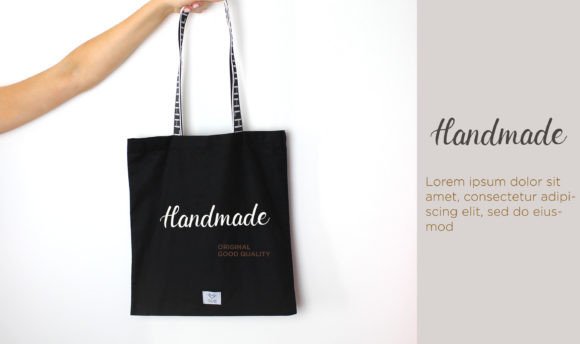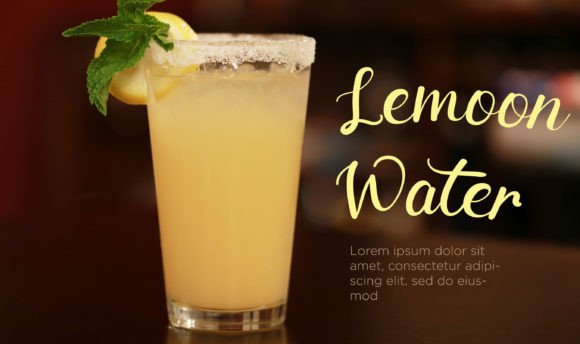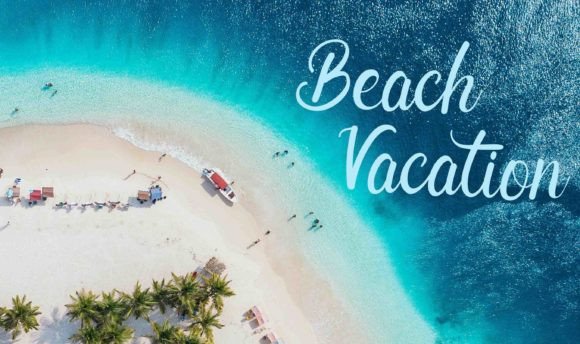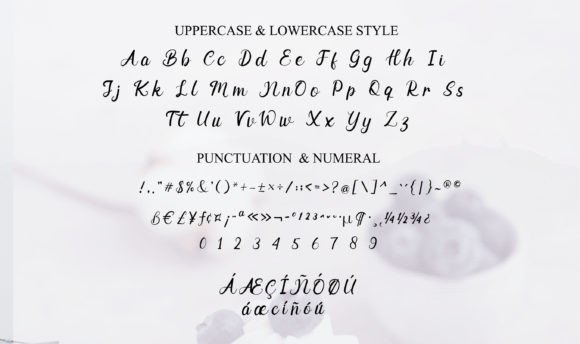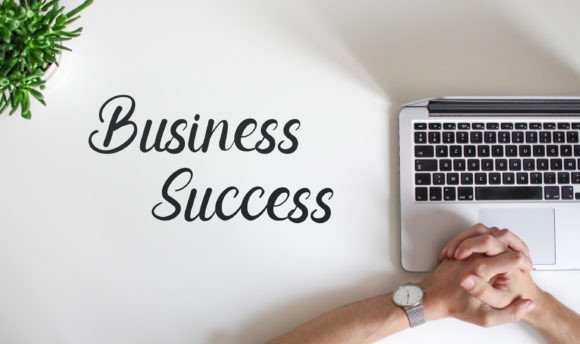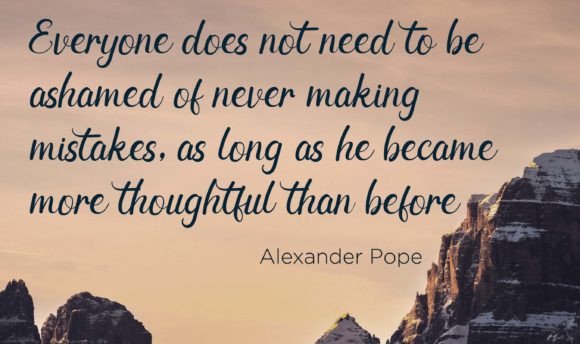
The Ultimate Guide to Friends Font: Elevate Your Designs with a Timeless Classic
I’ll never forget the time I was working on a wedding invitation project, and my client asked for a font that was both elegant and playful. I scoured the internet, trying out font after font, but nothing seemed quite right. That was until I stumbled upon the Friends Font. ✨ It was love at first sight! The quirky, handwritten style with a touch of sophistication was exactly what I needed to bring my design to life.
An Honest Review of Friends Font
- ✨ Unique and eye-catching design that’s sure to turn heads
- ✅ Perfect for a wide range of design projects, from invitations to branding
- 💫 Supports OpenType features, glyphs, and stylistic alternates for added versatility
- 📚 Includes a wide range of characters, numbers, and punctuation marks
While Friends Font is an amazing addition to any design project, there are a few things to keep in mind: 🤔
- ⚠️ Some characters may not work well in very small sizes, so be sure to test it out before committing
- ⚠️ May not be suitable for very formal or traditional designs, as it has a more playful tone
A Practical Guide to Using Friends Font
- Experiment with different OpenType features, such as ligatures and stylistic alternates, to add some personality to your design
- Use the “Glyphs” panel to access OpenType features, such as swashes and alternates
The Backstory of Friends Font
Friends Font was inspired by the timeless classic calligraphy of the past. The designer wanted to create a font that was both modern and nostalgic, with a quirky touch. The result is a font that’s perfect for designs that need a little extra personality. 💫
Q: What type of designs is Friends Font best suited for?
A: Friends Font is perfect for a wide range of design projects, including invitations, labels, packaging, logos, branding, and more. 🎉
Q: Does Friends Font support OpenType features?
A: Yes, Friends Font supports OpenType features, including ligatures, stylistic alternates, and glyphs. 🤩
Q: Is Friends Font easy to read?
A: Yes, Friends Font is designed to be easy to read, even in smaller sizes. However, it’s best suited for designs where you want to make a statement, rather than for body text. 📚